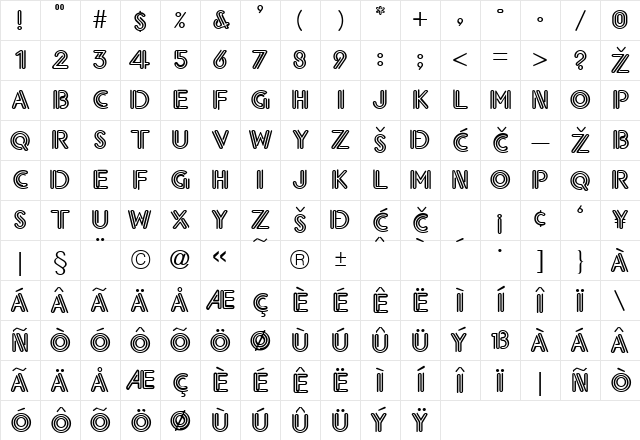
Eklektic Regular Free Font
Eklektic Regular
Eklektic Family
Complete Eklektic Regular glyph index. Displaying only characters natively supported by Eklektic Regular font.
Design Context for Eklektic
Eklektic is a composed and adaptable typeface that performs quietly and consistently across a wide range of design contexts.